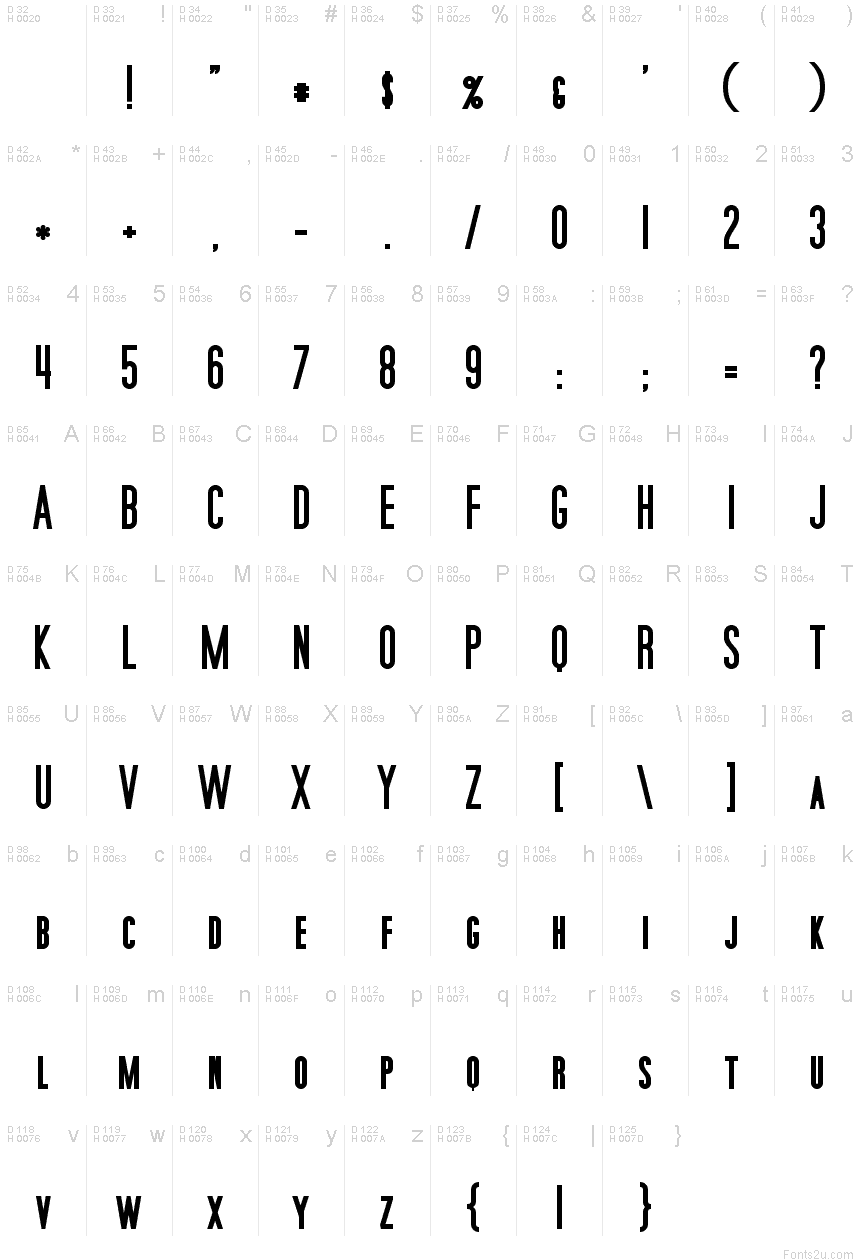
Movie Poster Bold
Movie Poster Bold font by ShyWedge is a free condensed sans serif font with tall, narrow letterforms and sharp, straight sides that give the nameplate a strong poster title presence. The spacing is tight and the strokes stay simple, so the face feels built for compact wording that still holds its shape.
Movie Poster Bold works well for film posters, event flyers, trailer graphics, album covers, title cards, and cinema-themed merchandise, where that compressed structure can keep a short phrase looking firm and direct. This free font also suits banner text, cover art, and promotional labels when you want a letter style that reads like a classic movie billing line.